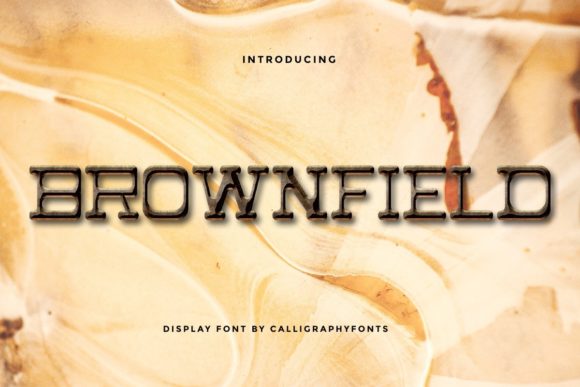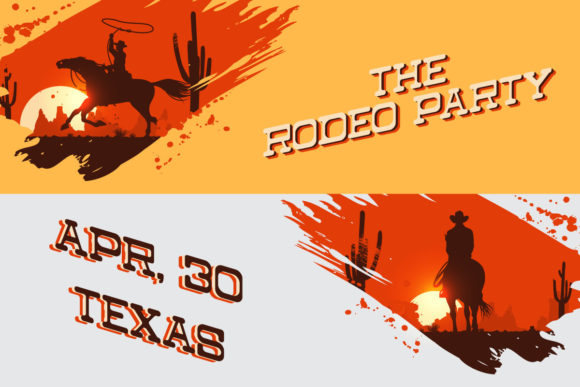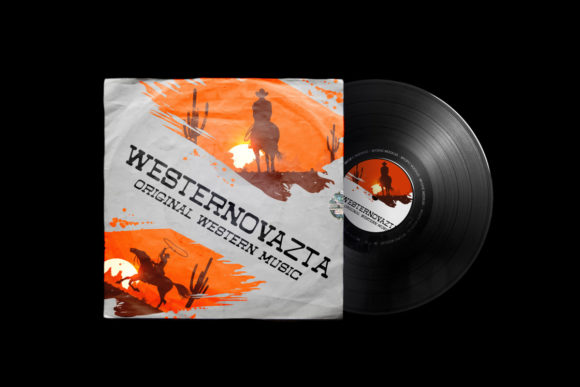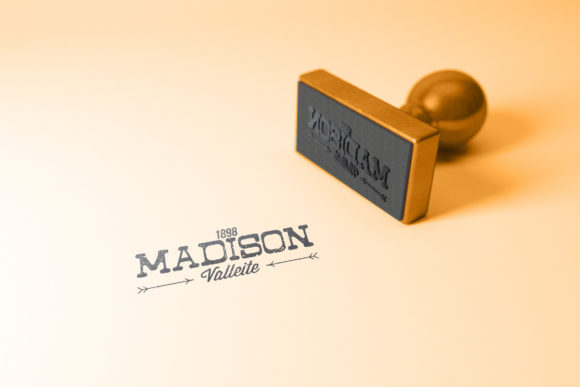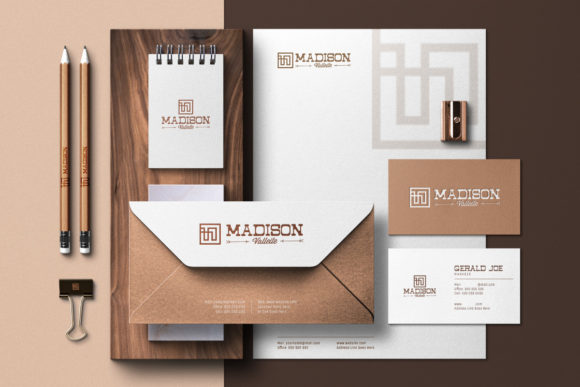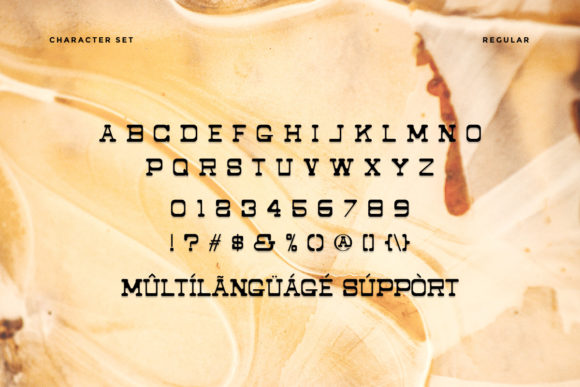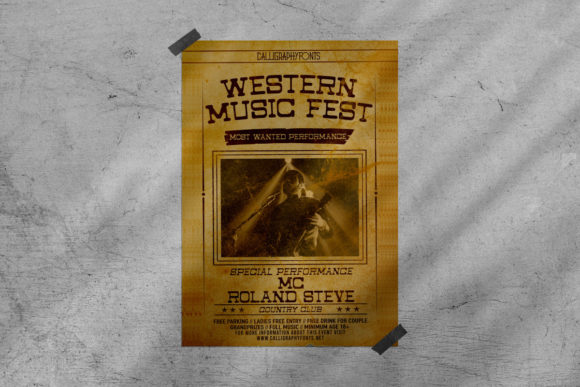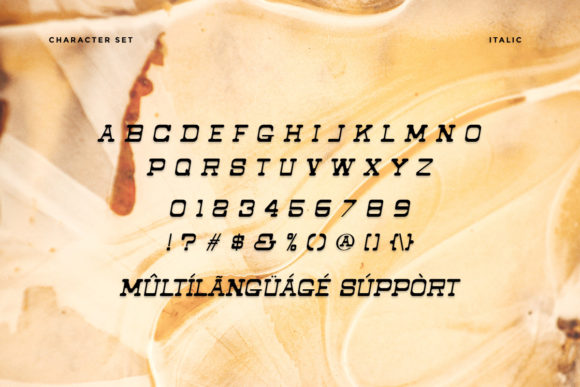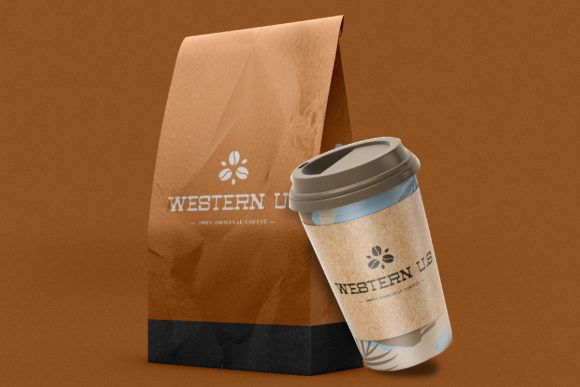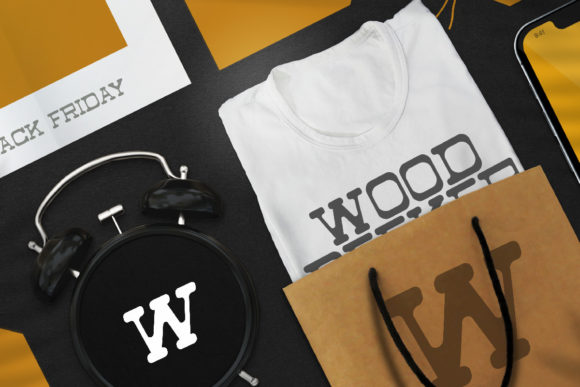
Brownfield
Brownfield: A Vintage Western Slab Serif Font
Brownfield is a unique slab serif font that blends vintage style with a western look. This versatile typeface can lift many crafting ideas, from cards to branding and labels.
Key Features of Brownfield
• Vintage Design: Brings a sense of nostalgia with its old-style letters.
• Western Look: Offers a rugged, frontier-inspired style.
• Slab Serif Style: Has the thick, square serifs typical of slab fonts.
• Flexible Use: Works well for many projects, from cards to labels.
• Eye-Catching Details: Unique features that make designs stand out with a vintage western feel.
Best Uses for Brownfield
Brownfield works especially well for:
• Greeting cards and invites with a western theme
• Branding for businesses with a rustic look
• Product labels and packaging design
• Posters for events with a western or vintage touch
• Logos for brands seeking a classic western style
When using Brownfield in your designs, try these ideas:
• Use for headlines to show off its vintage western impact
• Try different sizes to highlight the font’s unique details
• Pair with simpler fonts for body text to create contrast
• Take advantage of its versatility in various crafting projects
Brownfield is a great choice for designers wanting a vintage western slab serif font. It stands out in typography with its ability to lift various crafting ideas. Whether you’re working on logos for rustic brands or creating greeting cards, Brownfield offers both vintage style and versatility.
Moreover, adding Brownfield to your projects can boost your designs with its western flair. From eye-catching cards to engaging branding, this font creates memorable typography. It appeals to those seeking a vintage western look. Additionally, it’s flexible enough for various uses, from vintage-inspired designs to playful layouts needing a touch of rustic charm.
Furthermore, Brownfield adapts well to different moods. It can create a nostalgic atmosphere or aim for a more rugged mood in your designs. Its flexibility allows it to work in both vintage-style projects and modern designs needing a western touch. Lastly, for those wanting to add a dash of the Old West to their work, this font can even enhance vintage-inspired creations with a unique, frontier-style twist.